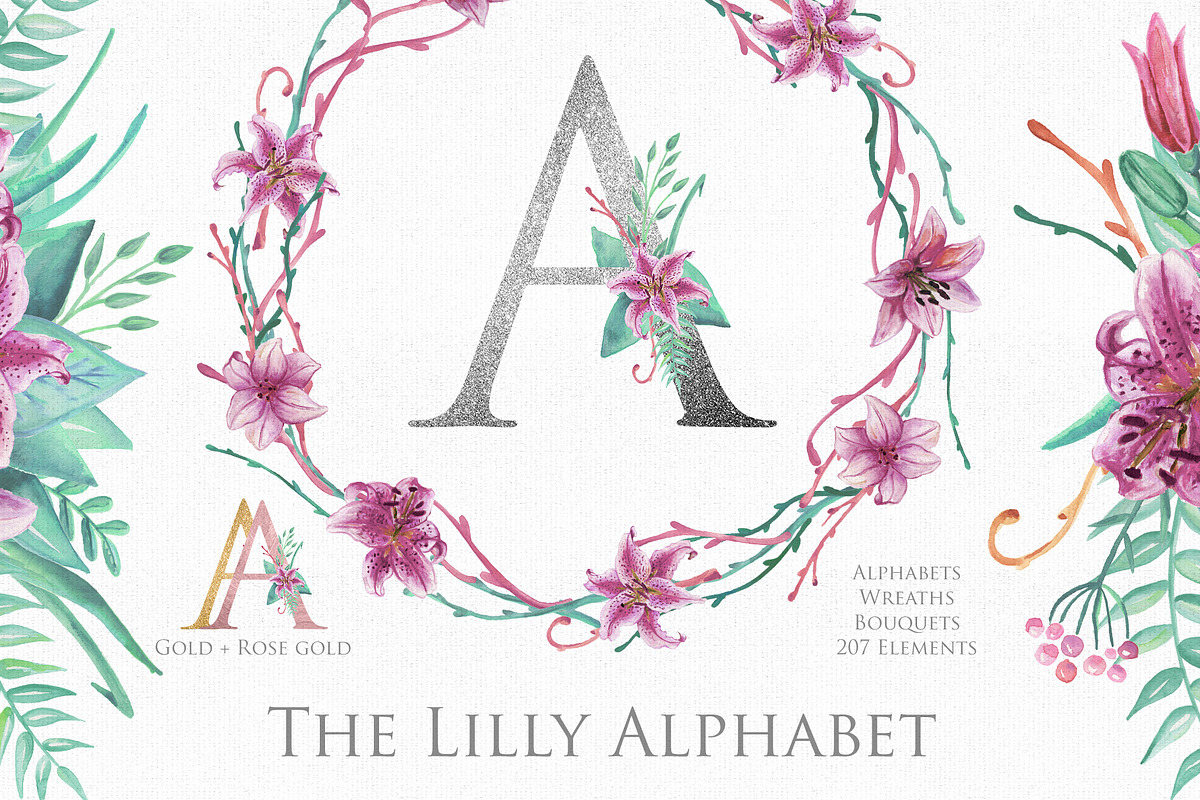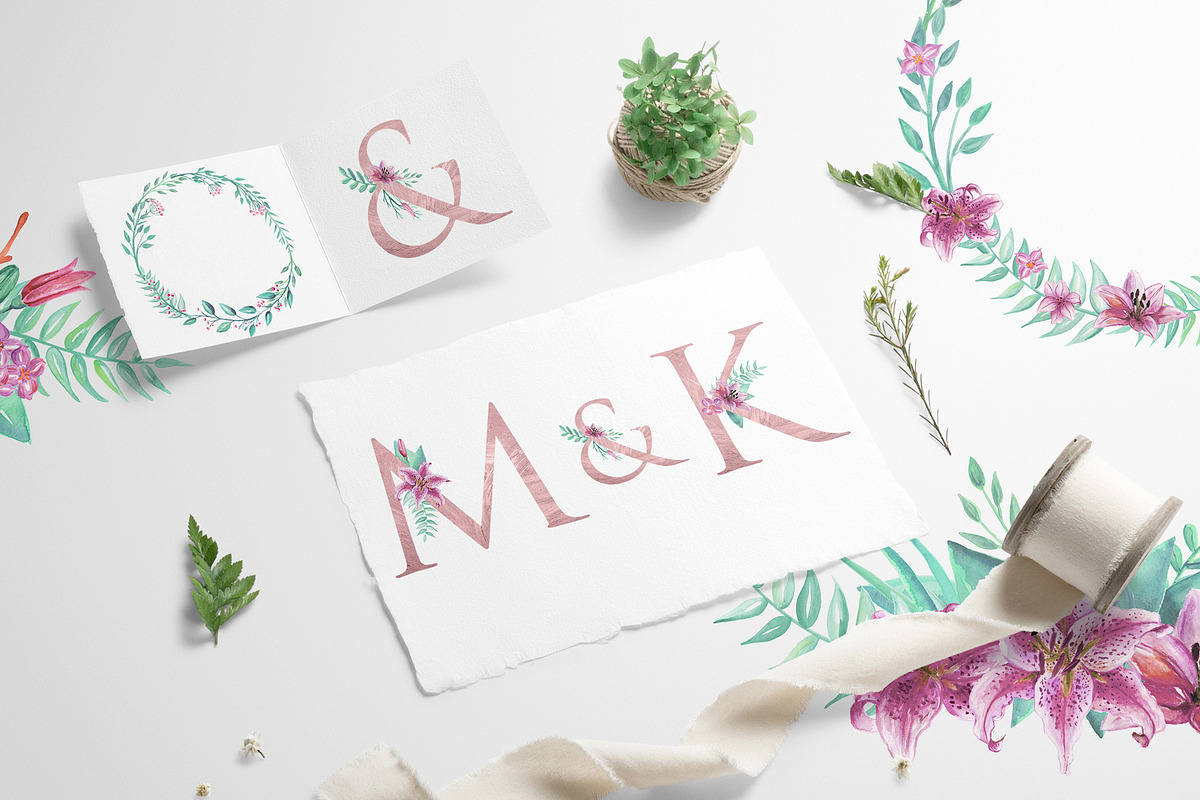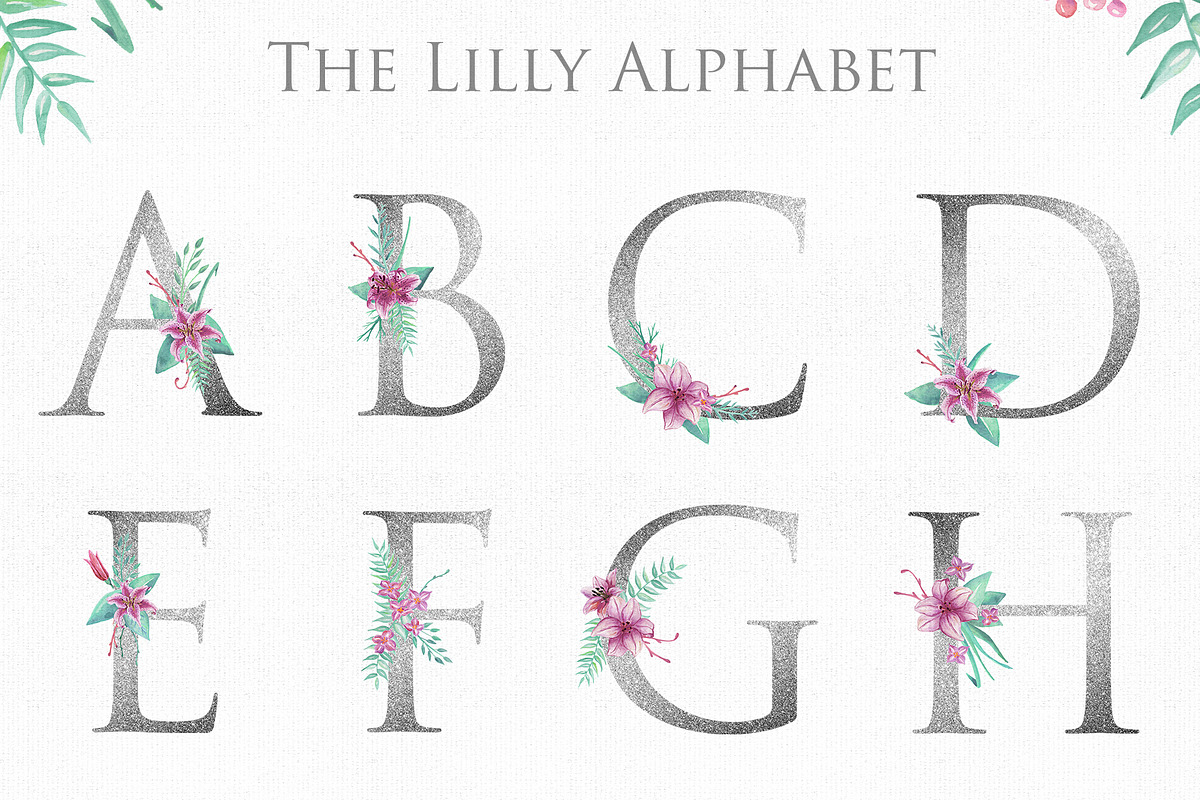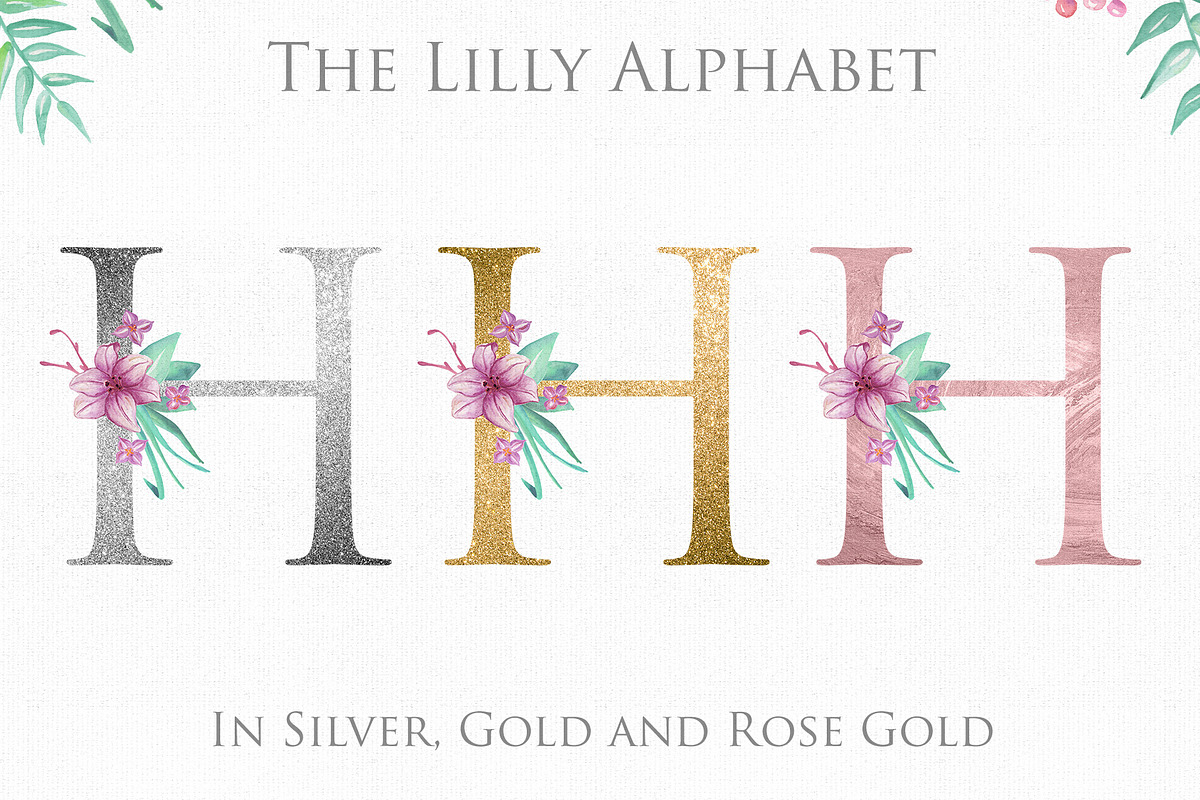
Lilly Alphabet Graphic Set
Beautiful alphabet in Silver, Gold and Rose gold with watercolor lillies. Perfect for your invitations and stationery!
- 27 Letter in Gold
- 27 Letter in Silver
- 27 Letter in Rose Gold
- 31 flowers
- 46 leaves
- 14 branches
- 13 pre-made bouquets
- 19 pre-made wreaths